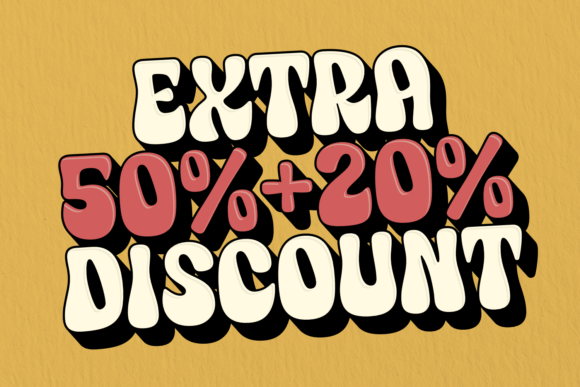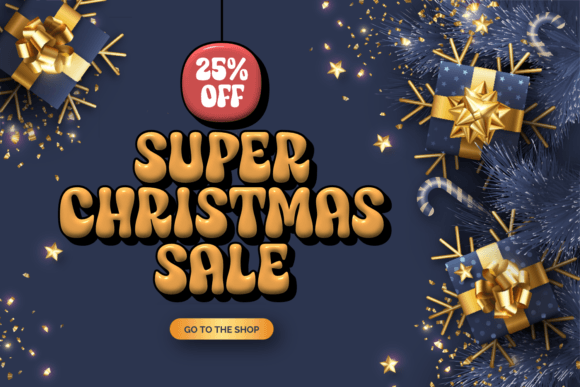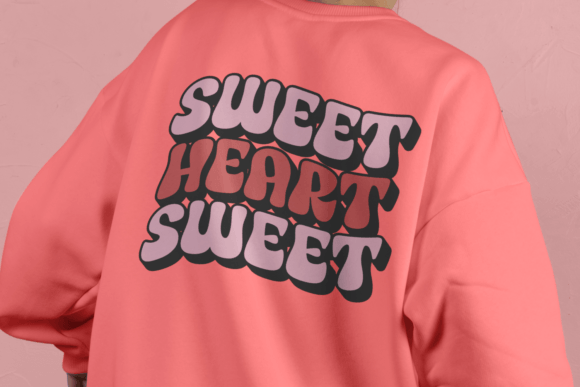
Introduction to Retro Extra Font
Have you ever been working on a creative project, pouring your heart and soul into it, only to realize that the perfect font is missing? You know, that one element that can take your design from meh to mesmerizing? That’s where the Retro Extra Font comes in – a high-quality display font that’s sure to add a touch of joy and whimsy to any project.
This free download is a game-changer for designers looking to add some visual interest to their work. With its thick and cheerful style, Retro Extra Font is perfect for creating eye-catching typography designs that will make any creation stand out. Whether you’re working on a poster, website, or apparel design, this font is a valuable design resource that’s sure to elevate your work.
Key Features of Retro Extra Font
- Unique, high-quality design suitable for creative projects and design resources
- Includes a transparent background, allowing for seamless integration with any design
- Features a large character set, making it ideal for multi-language designs
Honest Review: Retro Extra Font
As a designer, I’m always on the lookout for high-quality design resources that can elevate my creative projects. I recently came across the Retro Extra Font, and I’m excited to share my thoughts on this free download.
- ✨ Unique and eye-catching design that’s perfect for vintage-inspired projects
- ✨ A wide range of characters, including numbers and punctuation marks
- ✨ Supports transparent backgrounds, giving designers more flexibility when designing for digital or print media
- ⚠️ The font may not be suitable for all types of projects, particularly those requiring a more modern or sleek aesthetic
- ⚠️ Some characters may not be as detailed or refined as you’d like
Overall, I’m impressed with the Retro Extra Font. Its unique design and free download make it an excellent choice for designers looking to add a touch of nostalgia to their creative projects. With a little creativity, this font can be a valuable addition to any design resource collection.
Retro Extra Font
The Retro Extra Font is a high-quality, free download design resource perfect for creative projects. With its unique, vintage aesthetic, this font is ideal for designers looking to add a touch of nostalgia to their work.
Tips for Getting the Most Out of Retro Extra Font
To get the most out of the Retro Extra Font, consider the following tips:
- Use the font with a transparent background to create a sense of depth and layering.
- Combine the font with other design elements, such as vintage graphics and textures, to create a cohesive look.
- Experiment with different font sizes and styles to create visual interest. Alternatives to Retro Extra Font
- Choose a high-resolution image of a retro-themed background.
- Use the Retro Extra Font to add eye-catching text, such as the title and main message.
- Experiment with different font sizes and styles to create a visually appealing layout.
- Pair the Retro Extra Font with distressed textures or vintage patterns to enhance the retro vibe.
- Use a transparent background to make the design stand out.
- Choose a free download template or create your own design using the Retro Extra Font.
- Experiment with different font sizes and styles to create a visually appealing layout.
- Add a transparent background to make the design pop.
- Pair the Retro Extra Font with bright and bold colors to create a striking design.